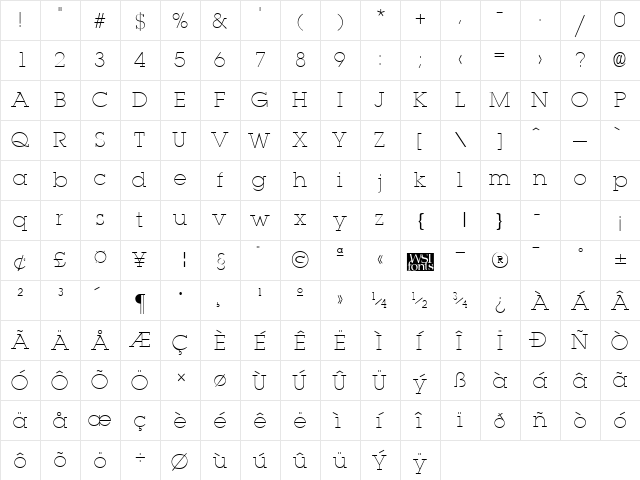
LaplandLight Regular
Design Context for LaplandLight Typeface
LaplandLight takes a measured approach to typography — its balanced proportions and neutral character make it a reliable workhorse for both digital and print work. Its slender proportions lend an understated elegance to any composition.
Pro Tip: Use LaplandLight in both headline and body roles to test its range before committing to a single application.